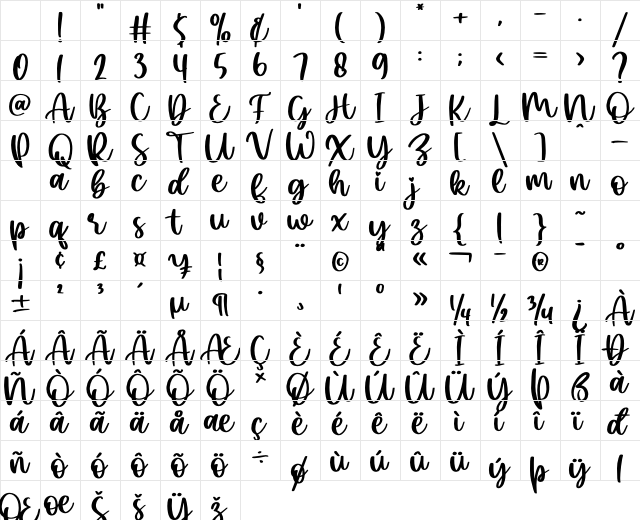
Complete Ellisha Regular glyph index. Displaying only characters natively supported by Ellisha Regular font.
Ellisha is a composed and adaptable typeface that performs quietly and consistently across a wide range of design contexts.
Who designed the Ellisha Regular font?